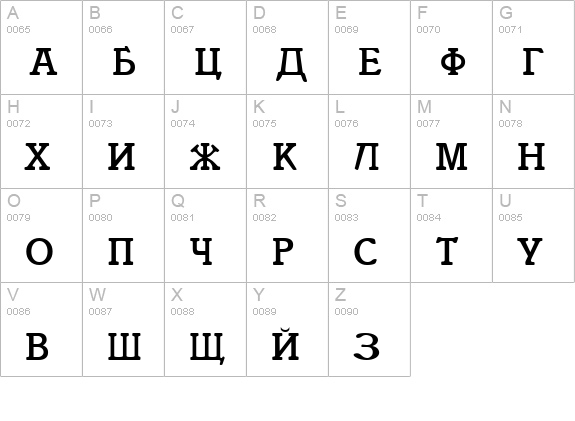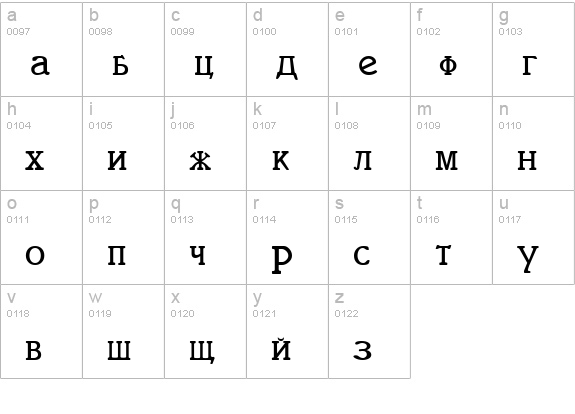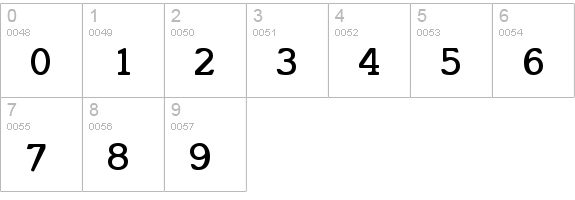
ItaliaCyrillic Font Details
ItaliaCyrillic font is a stunning typeface that beautifully merges the elegance of Italian design with the richness of Cyrillic characters. This font is a perfect choice for anyone seeking a unique and captivating style for their projects. With its meticulously crafted letterforms, ItaliaCyrillic manages to strike a perfect balance between classic sophistication and contemporary appeal. Its fluid curves and clean lines create a harmonious visual experience, making it ideal for a wide range of applications, including branding, advertising, editorial design, and more. One of the most remarkable aspects of ItaliaCyrillic font is that it is free. Yes, you read that right! This exceptional typeface is freely available to download at FontsMarket.com. By providing unrestricted access to this exquisite font, FontsMarket.com empowers designers, typographers, and enthusiasts to bring their creative visions to life without any financial barriers. Whether you are designing a logo for a luxury brand, creating eye-catching headlines for a magazine, or crafting an outstanding website, ItaliaCyrillic font will undoubtedly elevate your designs to new heights. Its versatility allows it to seamlessly adapt to various design projects, ensuring that your message is conveyed with utmost clarity and visual impact. So, why wait? Take advantage of this incredible opportunity and add ItaliaCyrillic font to your font library today. Download it for free at FontsMarket.com and unlock a world of endless design possibilities. Let your creativity soar with this exquisite typeface and make a lasting impression with every project you undertake.